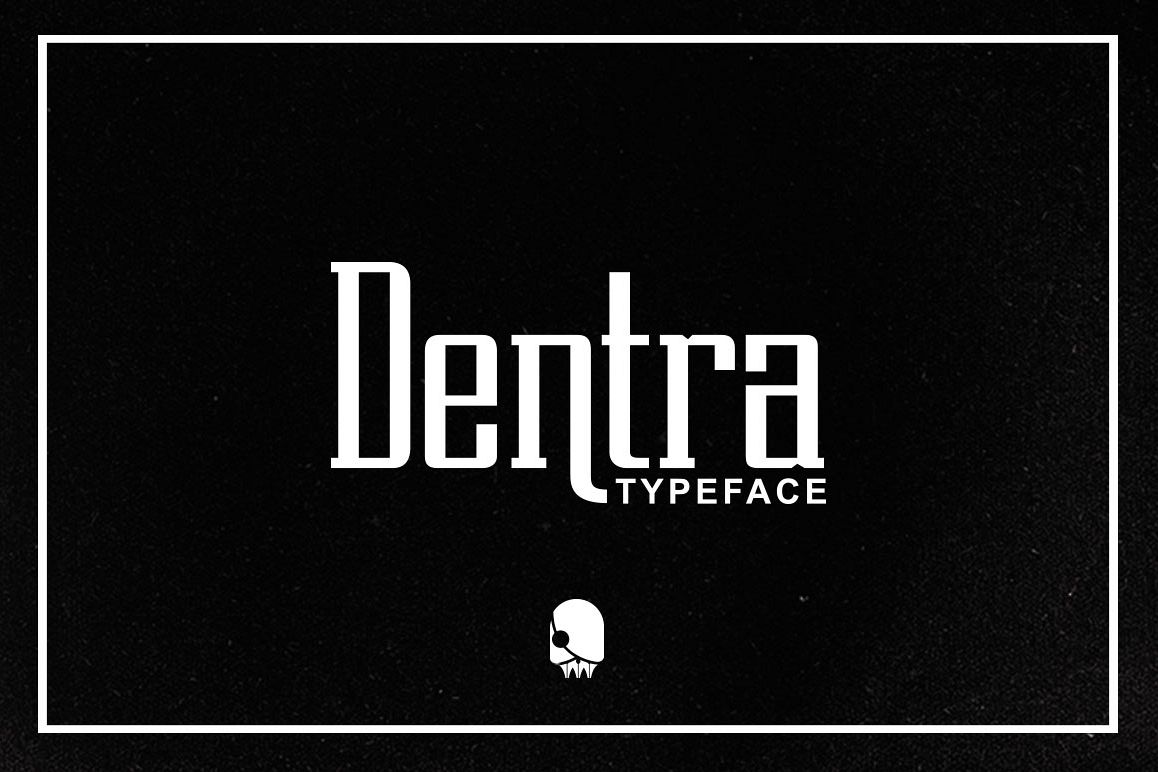
Dentra Typeface
Hello there..New PresentDentra Font is a Vintage, modern style Vintage, which was created to meet the needs of your next design project.Dentra Font, Can used for various purposes. such as the title, logo, correspondence, letterhead, signage, labels, newsletters, posters, badges, t-shirt, etc.Also supports in program, Adobe Illustrator, Adobe Photoshop, Adobe InDesign, Corel Draw X version, Microsoft Word,What included:Dentra Font.OTFDentra Font.TTFDentra VectorComes with upper and lowercase characters, large set of punctuation glyphs, numerals, and supports international languages.Mail support : If you have any question, please contact me Via e-mail : Thank you.